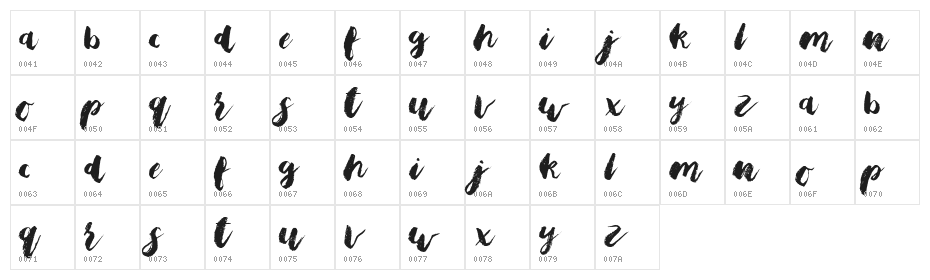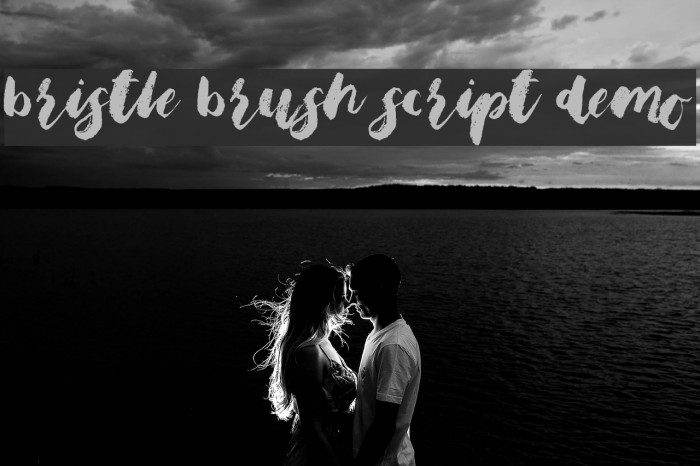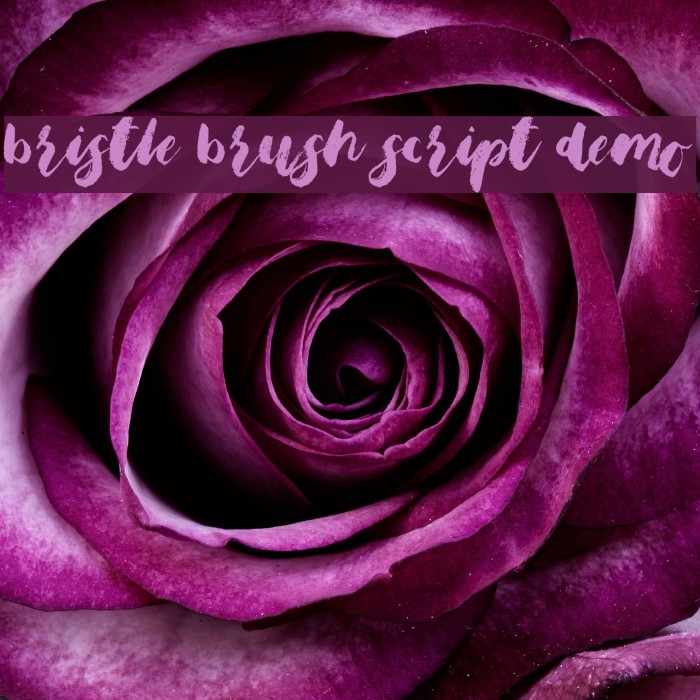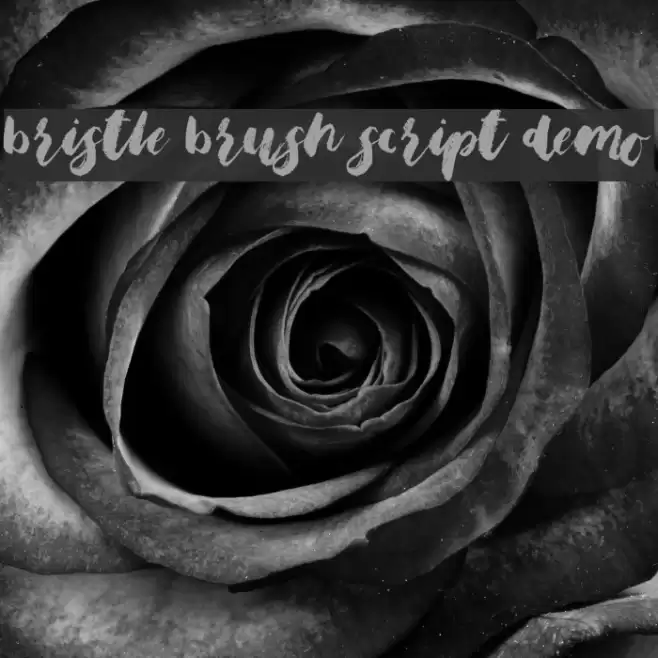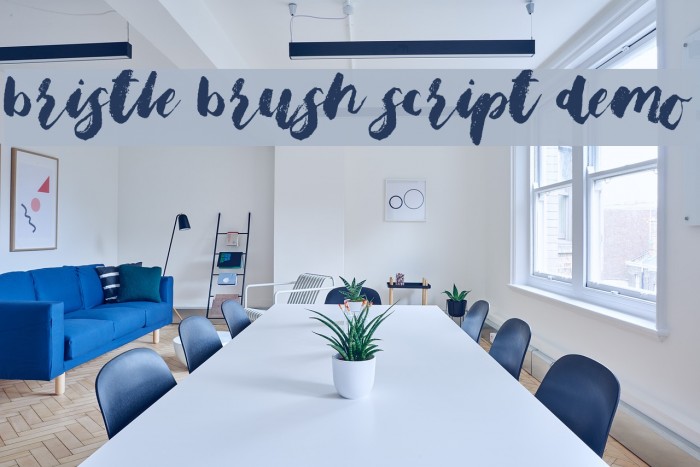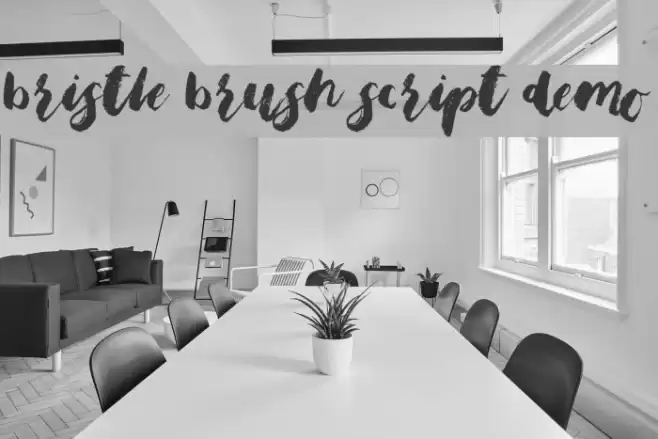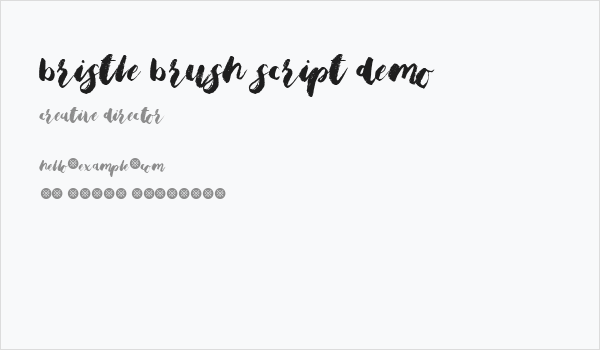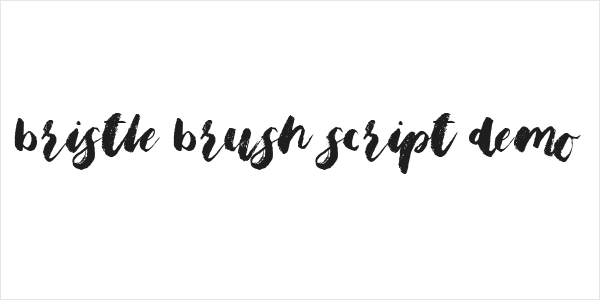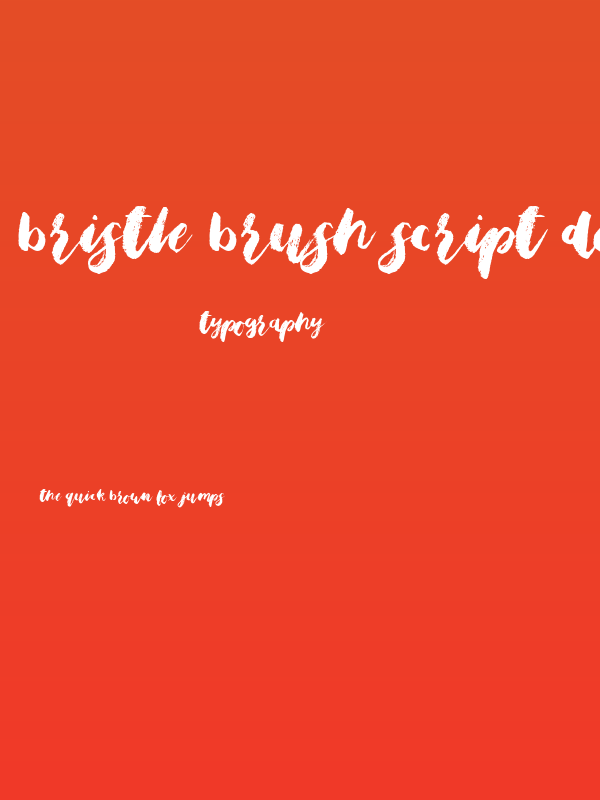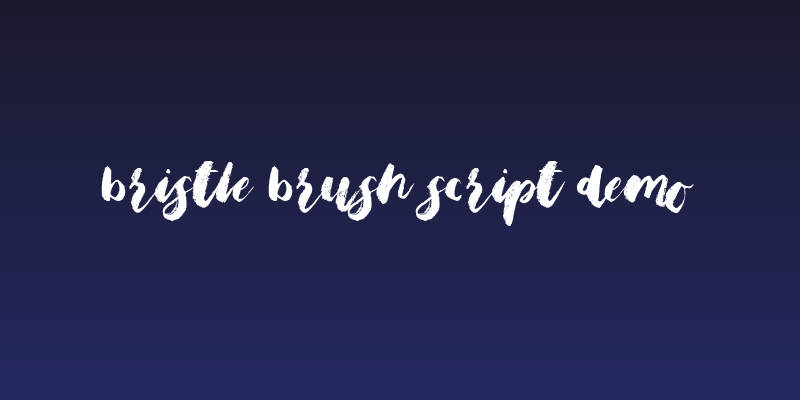
Bristle Brush Script Demo Font
Bristle Brush Script Demo Description
This font exudes a dynamic and artistic flair, characterized by its bold, brush-stroke appearance. The letters are crafted with a textured, hand-painted style that gives a sense of movement and energy. Each character flows into the next with a natural, cursive connection, creating a seamless and fluid look. The rough edges and varying stroke thicknesses add a rustic charm, making it ideal for creative and expressive designs. The font's organic feel is perfect for projects that require a personal touch or a handcrafted aesthetic.
| Proposed Projects | Ideal for branding, packaging, invitations, and artistic posters where a personal, handcrafted touch is desired. |